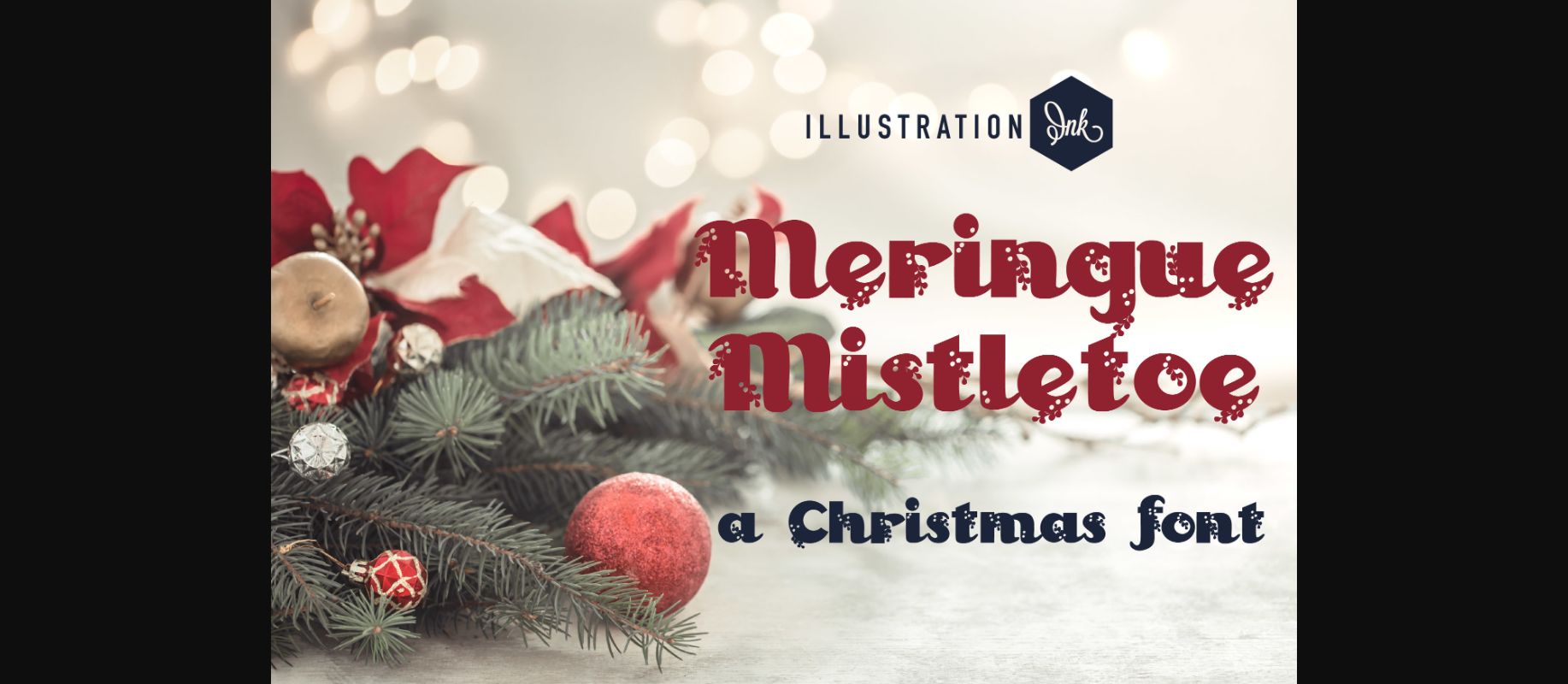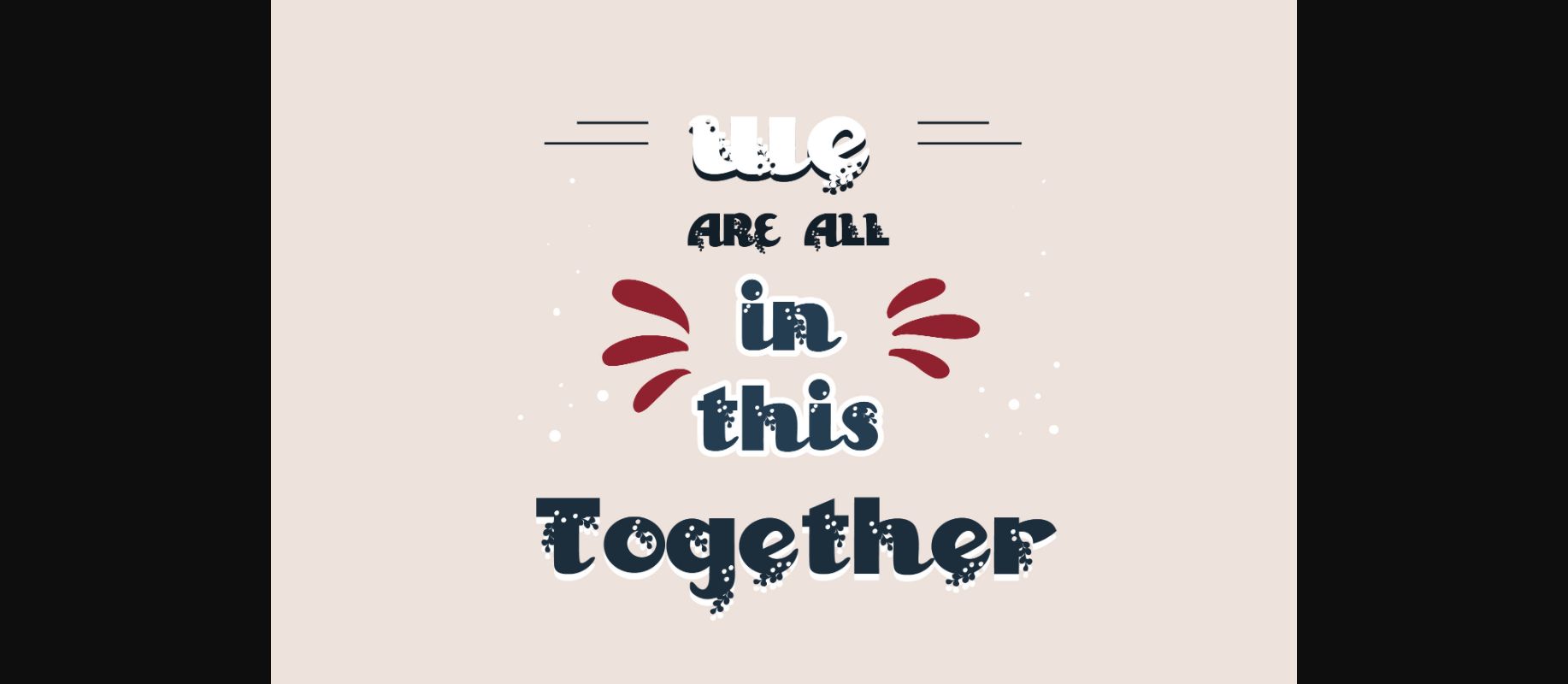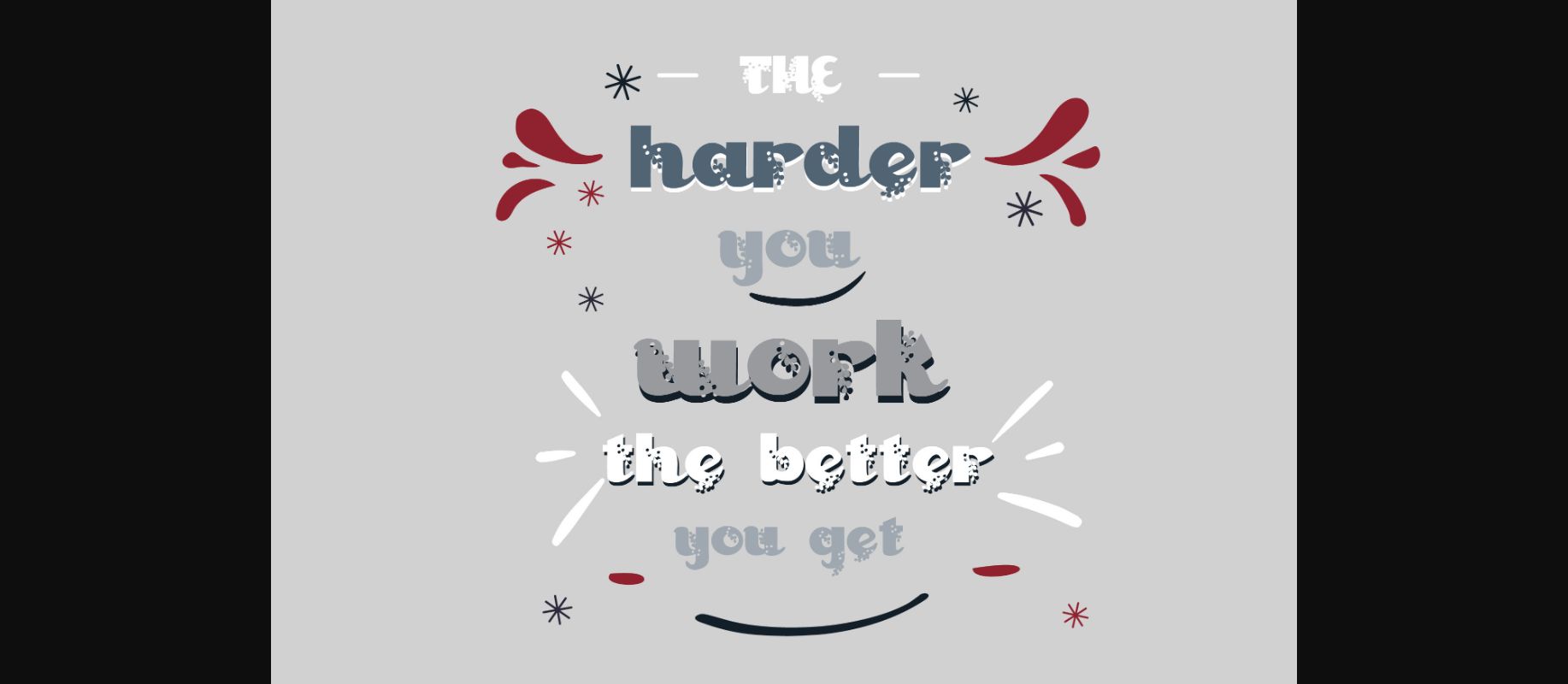
About Meringue Mistletoe Font
Meringue Mistletoe is a bold and blocky decorative font that is filled with holiday berries. Whatever the topic, this font will be a wonderful asset to your font library, as it has the potential to enhance any creation.